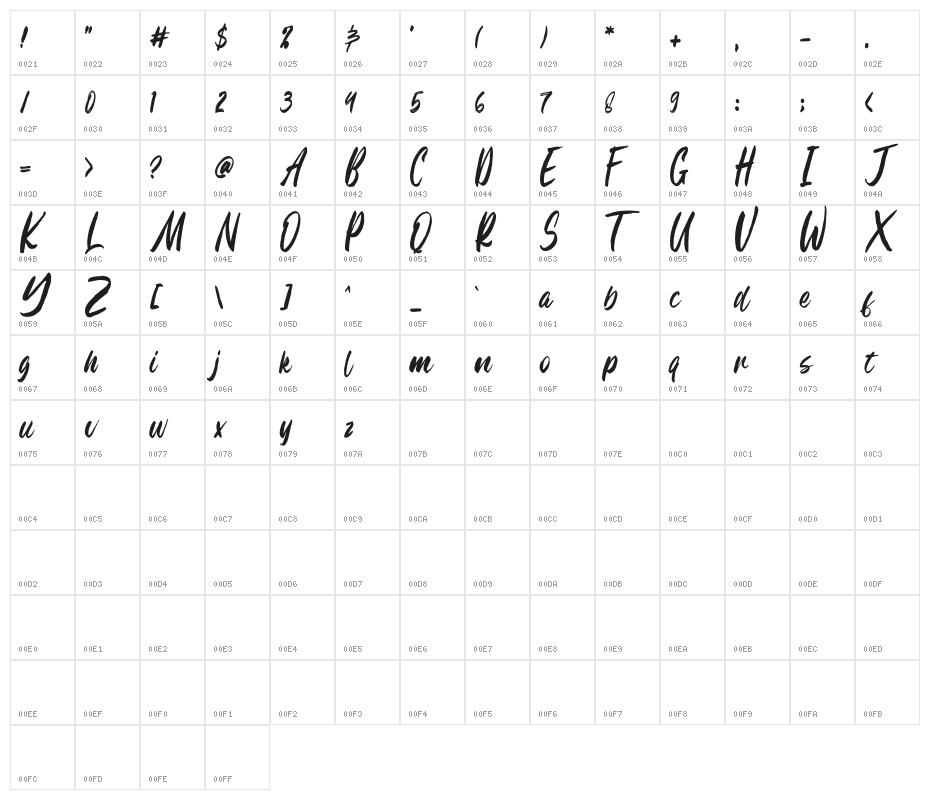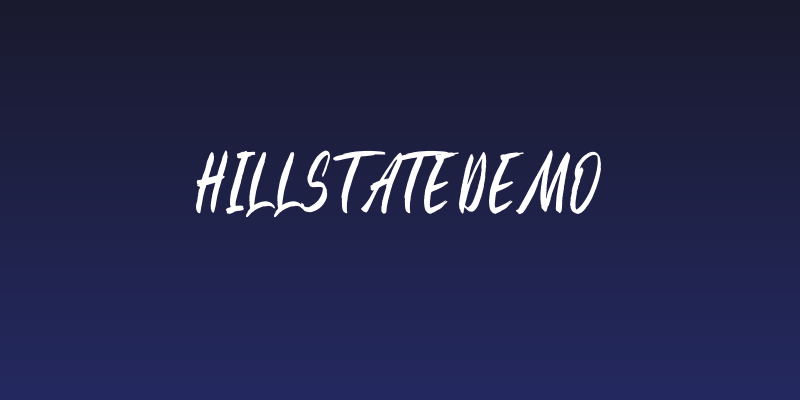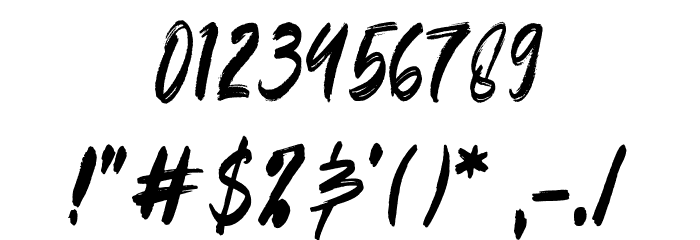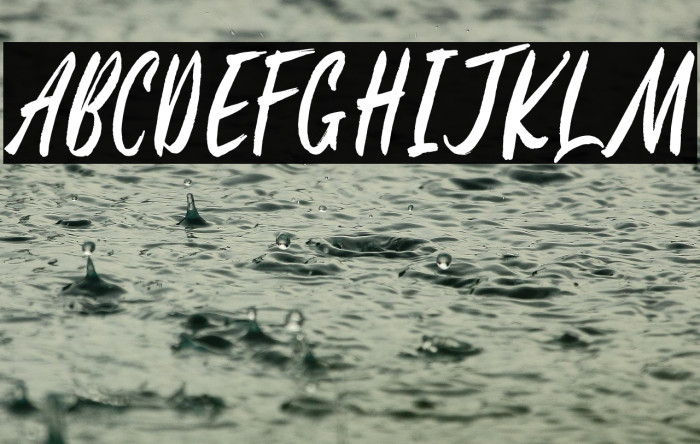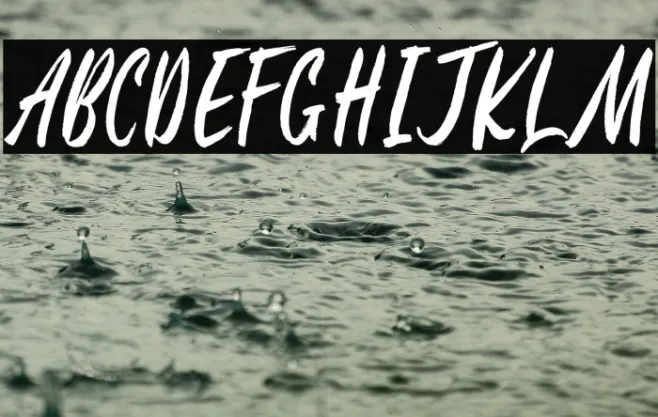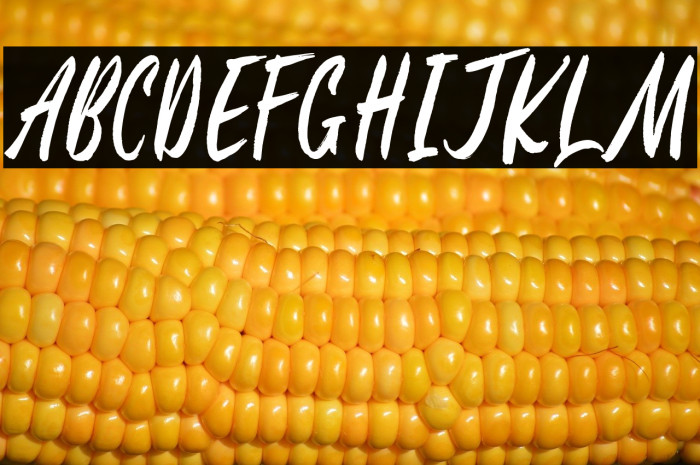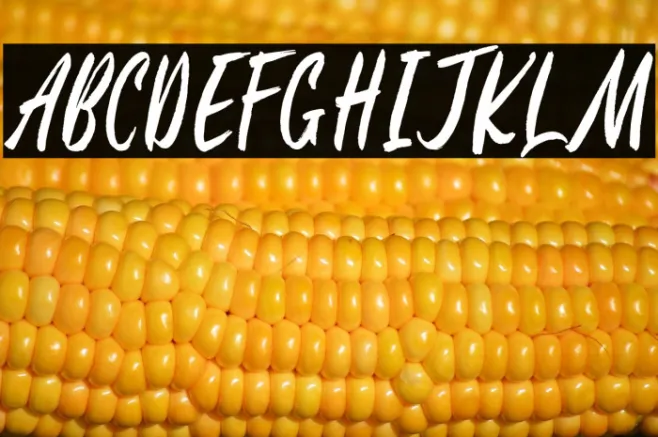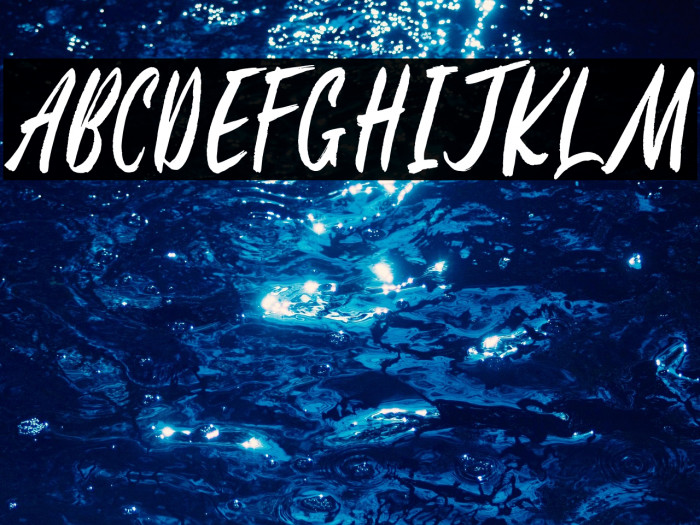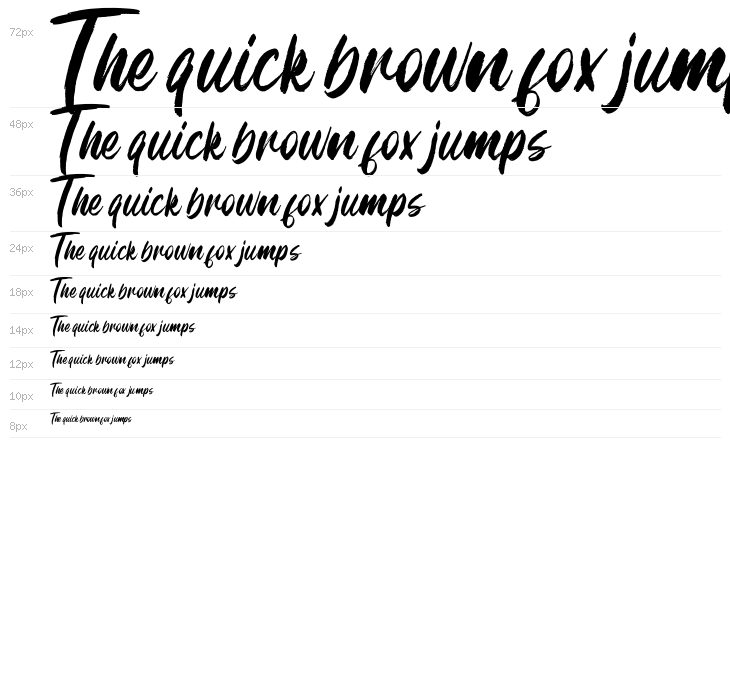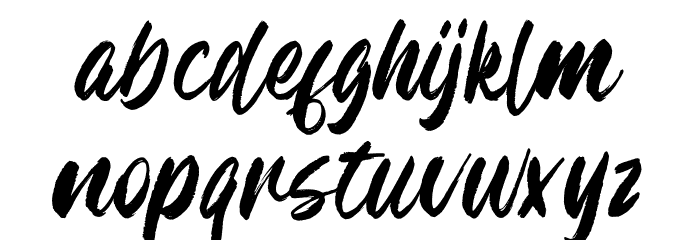
Hillstate Demo Font
Hillstate Demo Description
This font features a bold, expressive style with a handwritten appearance. The strokes are thick and dynamic, giving it a lively and energetic feel. The letters are slightly slanted, adding to the casual and informal nature of the design. The uppercase and lowercase letters maintain a consistent flow, while the numbers and special characters complement the overall aesthetic. The font's brush-like texture adds a touch of artistry, making it suitable for creative and eye-catching designs.